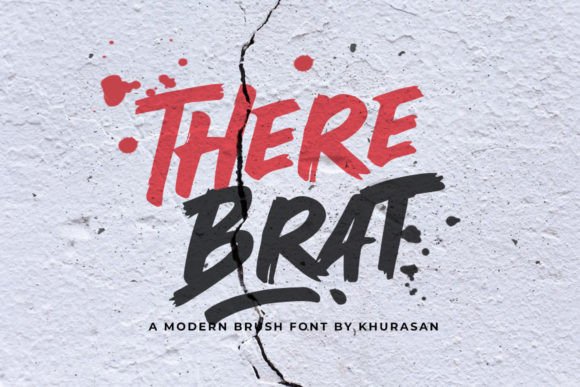
The Brat Font has become popular in branding, posters, TikTok edits, social media graphics, digital scrapbooks, and aesthetic merchandise. If you’ve seen bold, cute, messy handwritten typography with a playful attitude, chances are you’ve come across something inspired by the Brat font style.
What Is the Brat Font?
The Brat Font is a playful handwritten display font inspired by casual handwriting styles seen in viral social media designs, especially the iconic Brat aesthetics used across Gen-Z digital culture.
It features:
Messy but readable letters
Soft rounded edges
Youthful handwriting energy
Slight unevenness for authenticity
A bold, friendly visual tone
Unlike traditional serif or calligraphy script fonts, the Brat Font isn’t formal — it’s expressive and intentionally imperfect. This makes it great for designs meant to feel personal, emotional, sarcastic, or cute.
Why Is the Brat Font Trending?
The surge in popularity comes from:
TikTok aesthetic edits
Social media memes and captions
Scrapbook and journal printables
Emotional quote posts
Influencer branding
Stickers, merch, shirts, and digital planners
Graphic styles shift every few years. Recently, designs have moved away from overly clean minimal styles and toward expressive fonts full of character. The Brat Font fits that trend perfectly because it feels raw and personal—almost like someone wrote it with a marker.
Best Uses for the Brat Font
The Brat Font is extremely versatile in creative work. Some ideal uses include:
| Use Case | Suitable? |
|---|---|
| Instagram/TikTok posts | ✔ Yes |
| Printable journals & planners | ✔ Yes |
| Scrapbooking | ✔ Yes |
| Apparel (hoodies, shirts, tote bags) | ✔ Yes |
| Logo design | ✔ Sometimes (depends on style) |
| Book covers | ✔ Yes |
| Children’s projects | ✔ Yes |
| Web design | ✔ Yes |
| UI text or long paragraphs | ✘ No — not ideal for long reading |
Since the font has a handwritten display nature, it’s perfect for titles, quotes, and short statements, not body text.
Designers using Procreate brushes often love pairing this font with doodles, stars, stickers, neon scribbles, and outline shadows.
Final Thoughts
The Brat Font is one of the most exciting aesthetic fonts trending today because of its raw handwritten energy, bold personality, and expressive style. Whether you’re designing cute social posts, editing videos, or creating merch, this font adds instant attitude and personality.